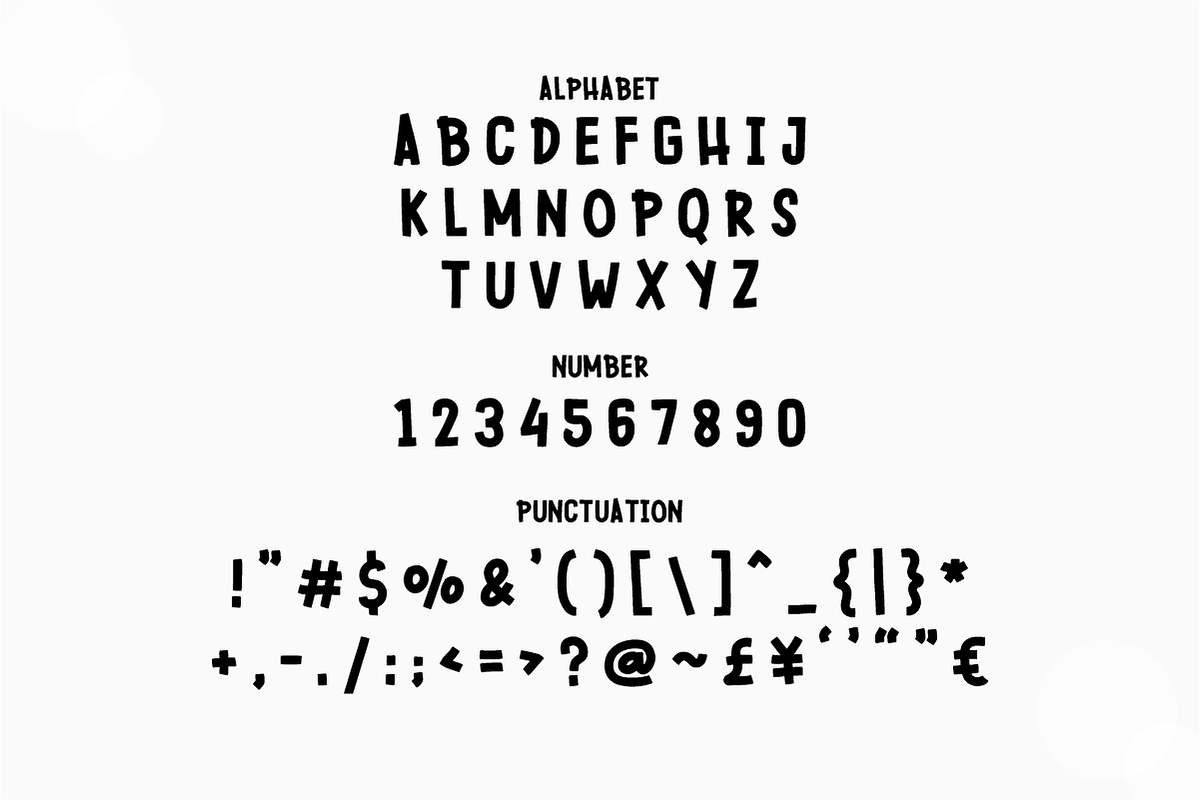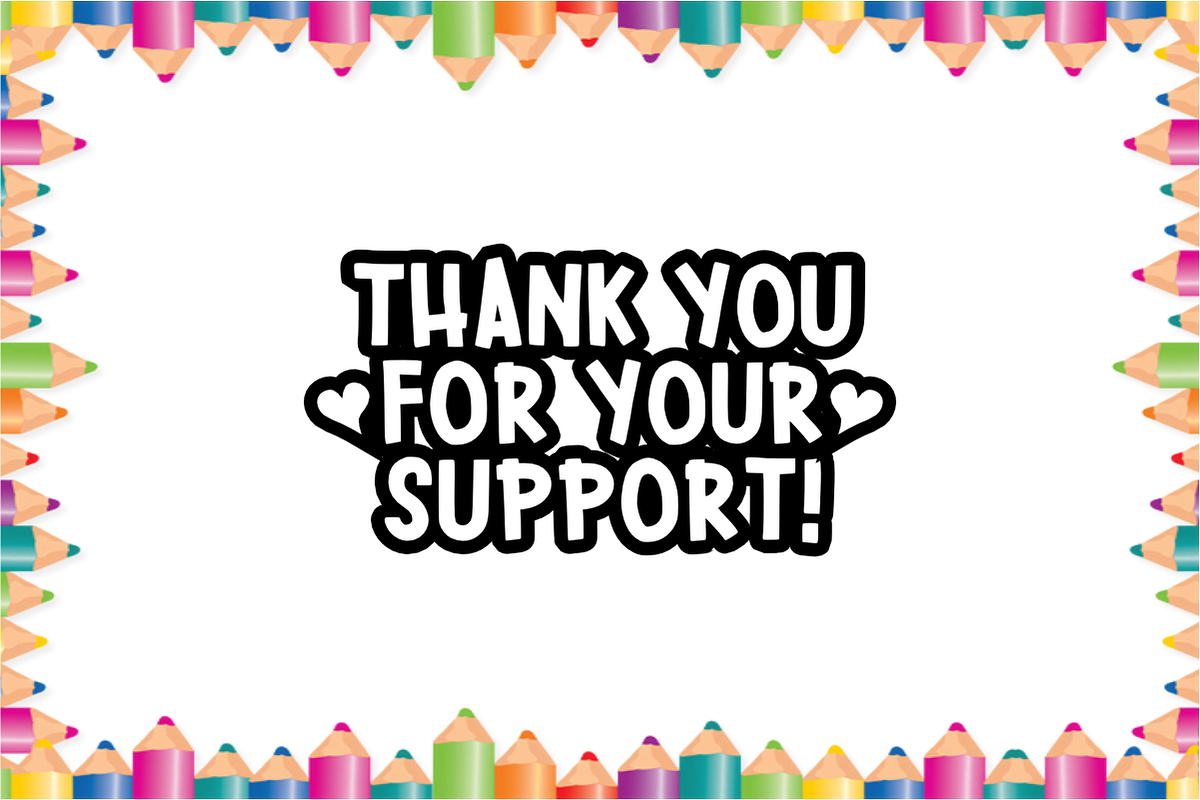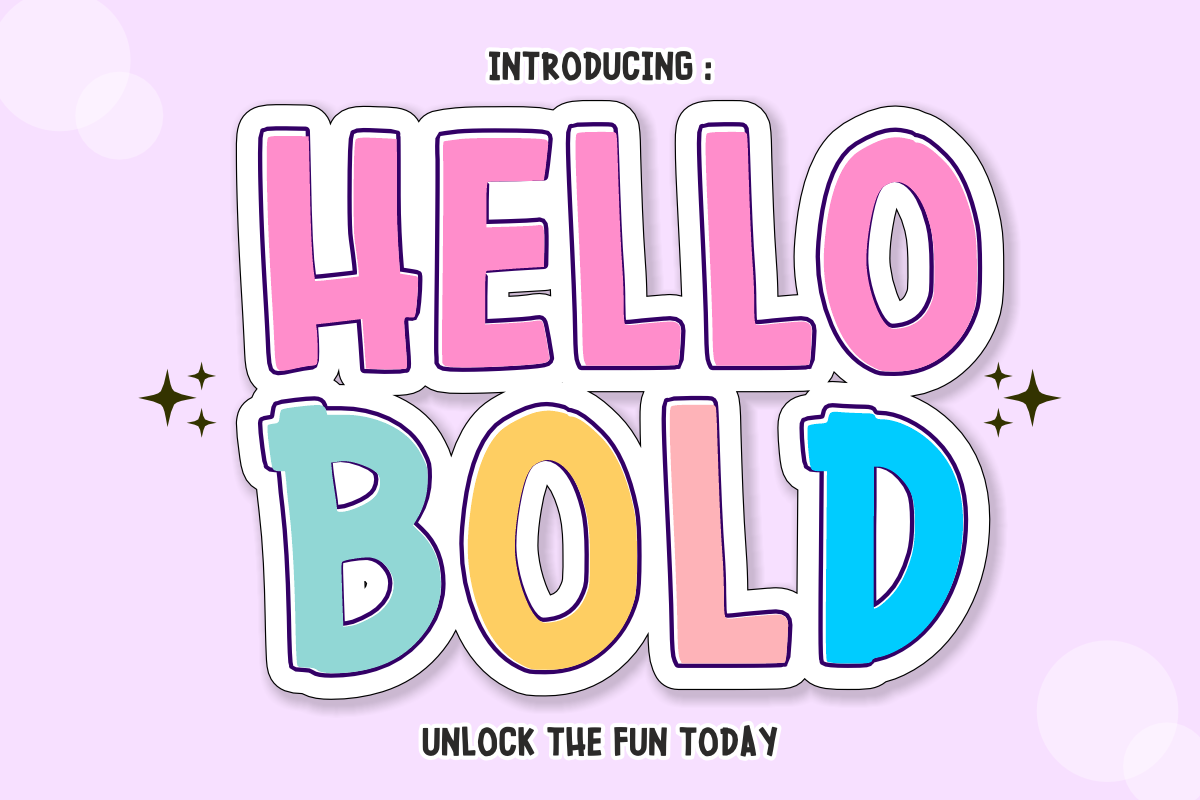
Hello Bold - Cute Chunky Font
Hello Bold is a tall, chunky, and playful display font featuring thick rounded letterforms with an energetic hand-drawn feel. Designed to make your titles pop, this fun font brings instant joy and bold visual appeal to kids' crafts, sticker packs, school projects, and custom merch. Every character is cleanly vectorized to guarantee high-resolution prints and smooth, effortless cutting on Cricut and Silhouette machines.
Uppercase Character Set
Numbers & Basic Punctuation
Ideal For:
Cricut, Silhouette, and HTV vinyl craft projects for kids' t-shirts, custom mugs, tote bags, and tumbler wraps
Custom die-cut sticker packs, planner decals, laptop stickers, and digital scrapbooking layouts
Teachers Pay Teachers (TpT) authors making classroom bulletin headers, learning worksheets, and student rewards
Etsy sellers designing birthday invitations, greeting cards, personalized gifts, and colorful printables
Canva template creators making bold social media graphics, party banners, and event posters
Children's storybook titles, toy packaging, baby product branding, and cheerful logo designs